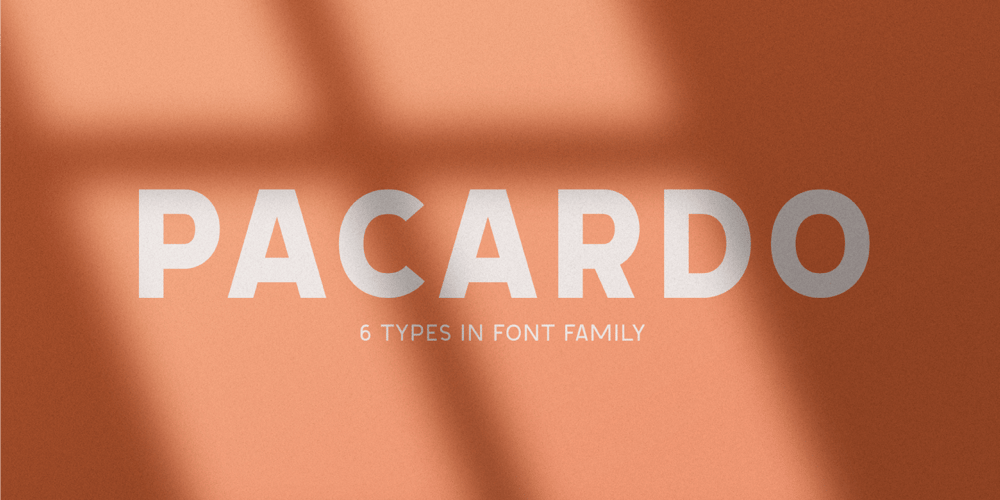
Pacardo Font Family was designed by Lauritta Ivanova and published by Luxfont. Pacardo contains 6 styles and family package options. Introducing a clean geometric font family in Modernism style. Neat and at the same time provocative font attracts attention with its forms. New-fashioned font with original letters will perfectly complement both trendy abstract designs and designs in a retro style. Constructing letters with a bias towards heavier weights and contrast. Versatility of the typeface works well with designs in different styles.Features: Geometric and Modern 6 fonts in family: – Thin, Thin Italic – Regular, Italic – Bold, Bold ItalicKerningld.luxfont@gmail.com